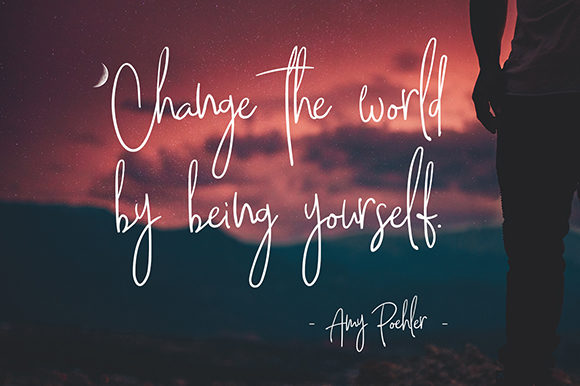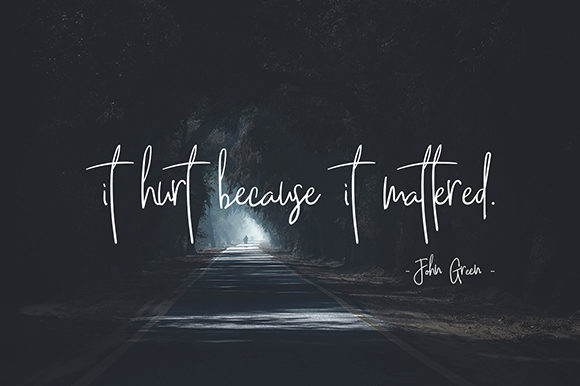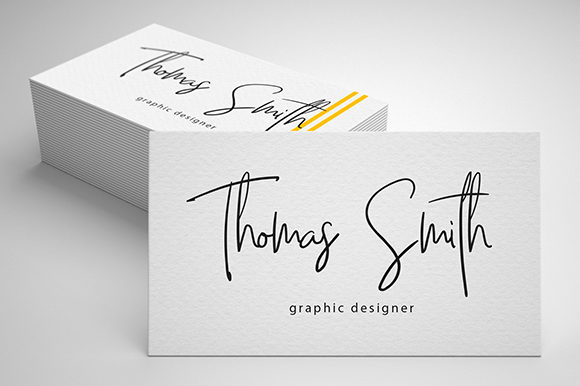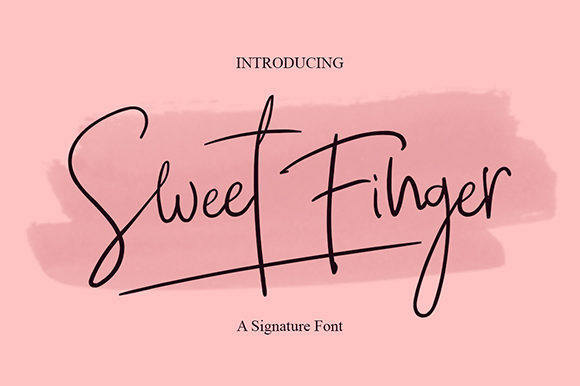
Sweet Finger Font
The Sweet Finger is a natural signature script. It has an elegant feel and is perfect for watermarks, special events, and every other design that needs an authentic handwritten touch.